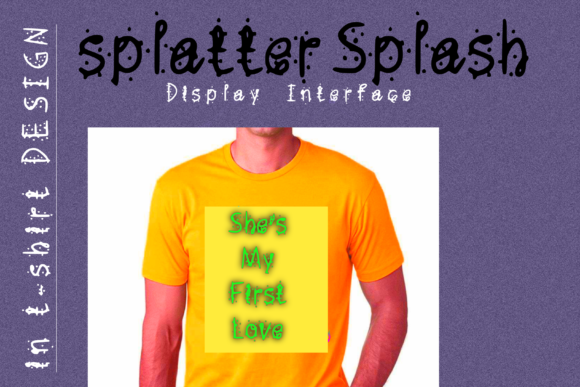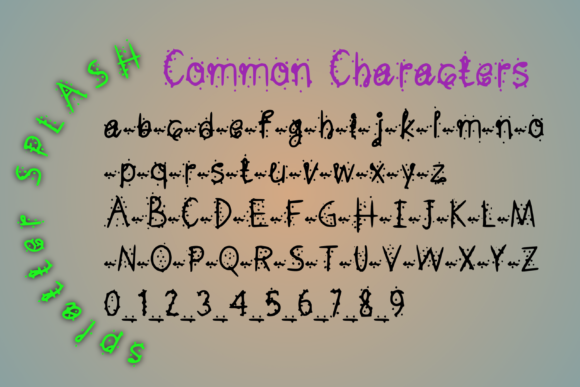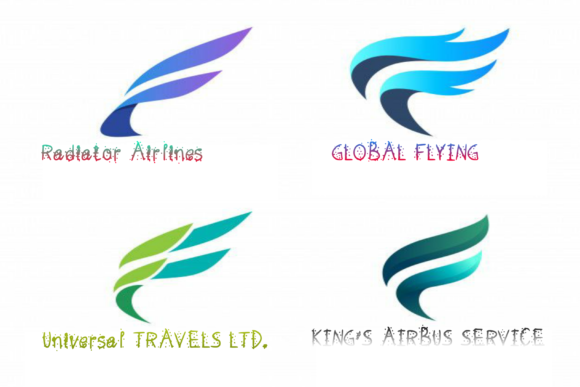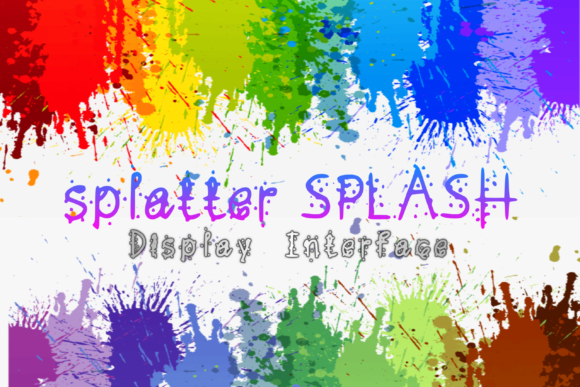
Splatter Splash
About Splatter Splash Font
Splatter Splash is a cool and fresh display font. Whether you use it for cartoon related designs, children games or just any creation that requires a lovely touch, this font will be an amazing choice.